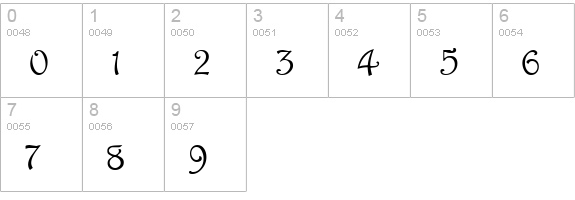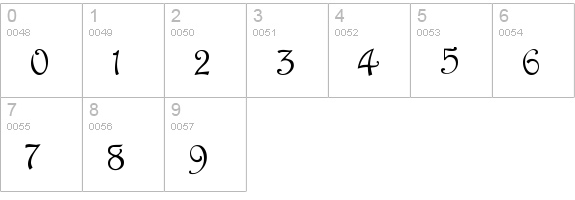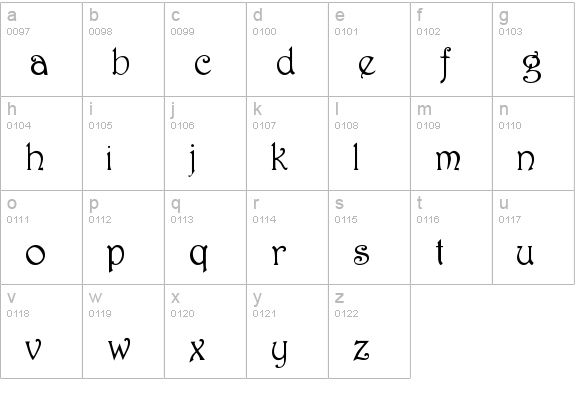
Parisian Normal is the standard, neutral variant in the Parisian typeface family \xE2\x80\x94 well suited to general body text, paragraphs, and standard typographic work.
Parisian Normal is a stunningly elegant and effortlessly timeless font that captures the essence of Parisian sophistication. With its delicate curves and graceful letterforms, this font will transport you to the charming streets of the City of Light. Parisian Normal is the epitome of classic beauty, making it perfect for a wide range of design projects. Whether you're creating invitations, wedding stationery, logos, or branding materials, this font will add a touch of refinement and refinement to any project. What sets Parisian Normal apart is not only its exquisite design, but also its accessibility. This font is freely available to download at FontsMarket.com, allowing designers and creatives from all walks of life to access and utilize its beauty without any restrictions. Whether you're a professional designer or a passionate hobbyist, Parisian Normal is a font that will elevate your work to new heights. Its timeless appeal and versatility make it a valuable addition to any font collection. So, why wait? Download Parisian Normal today and let its elegance and charm inspire your next creative endeavor.